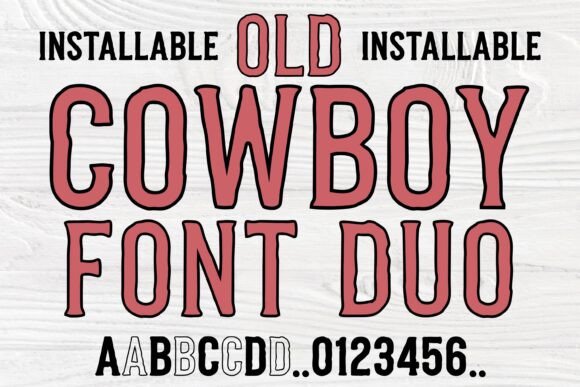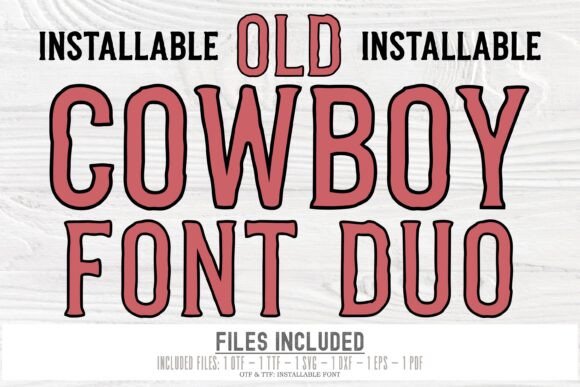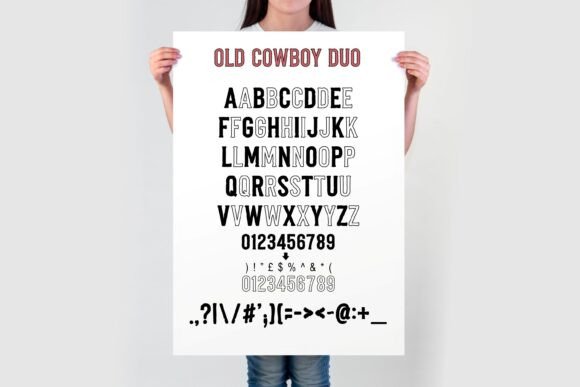
Old Cowboy Duo Font
About the Old Cowboy Duo Font
Introducing the Old Cowboy Duo Font, a beautifully crafted typeface designed to elevate your creative projects. “Old Cowboy” is a one-of-a-kind, weather-worn font that encapsulates the untamed essence of the Wild West. Its robust contours and country-style personality inject a potent, vintage aura into any design project. It’s the go-to choice for designs with a rodeo or cowboy charm, nostalgic signage, or even for projects that call for a touch of industrial grit or adventurous spirit.
Seamless of posters, branded merchandise, logos, and invitations, “Old Cowboy” bestows your creations with an unmistakably genuine frontier atmosphere. Meanwhile, “Old Cowboy Duo” is a Western-inspired font that masterfully merges bold uppercase letters with an outline lowercase counterpart, cleverly assembled to interlock for a distinctive dual-color layer effect.
Old Cowboy Duo Font Example